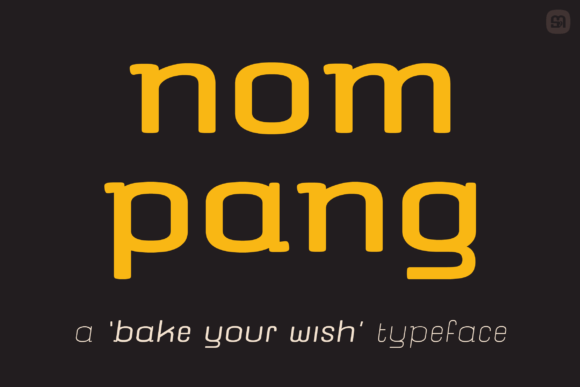
Indulge in the exquisite world of Nompang, a captivating slab serif font that will ignite your creativity and elevate your designs to new heights. With its timeless elegance and versatility, Nompang seamlessly adapts to a myriad of projects, transforming your ideas into stunning masterpieces.
Picture the warmth of a cozy café, where the aroma of freshly brewed coffee mingles with the soft clinking of teaspoons. Nompang adorns the menu boards, its bold strokes dancing across the surface like a symphony of flavors. The font's sturdy presence commands attention, inviting patrons to savor each sip and immerse themselves in the ambiance.
Envision the joy of crafting heartfelt greeting cards that carry your love and best wishes. Nompang's graceful curves and sharp angles intertwine seamlessly, creating a visual harmony that expresses your sentiments with unparalleled charm. The font's distinctive character adds a touch of sophistication to every message, making your words resonate with genuine emotion.
Step into the world of presentations and let Nompang captivate your audience. Its clear and legible letterforms ensure that your ideas shine through, while its inherent elegance lends an air of authority and professionalism. Nompang transforms your slides into dynamic visual aids, leaving a lasting impression on your listeners.
And when the celebratory spirit calls, Nompang takes center stage. Its timeless aesthetic adds a touch of sophistication to wedding invitations, bringing the joy and romance of the occasion to life. Nompang's versatile nature extends to any creative endeavor, whether you're designing logos, branding materials, or simply adding a dash of charm to your personal projects.
With Nompang at your fingertips, the possibilities are endless. Its timeless style and captivating presence will elevate your designs to new heights, leaving an unforgettable mark on your audience.